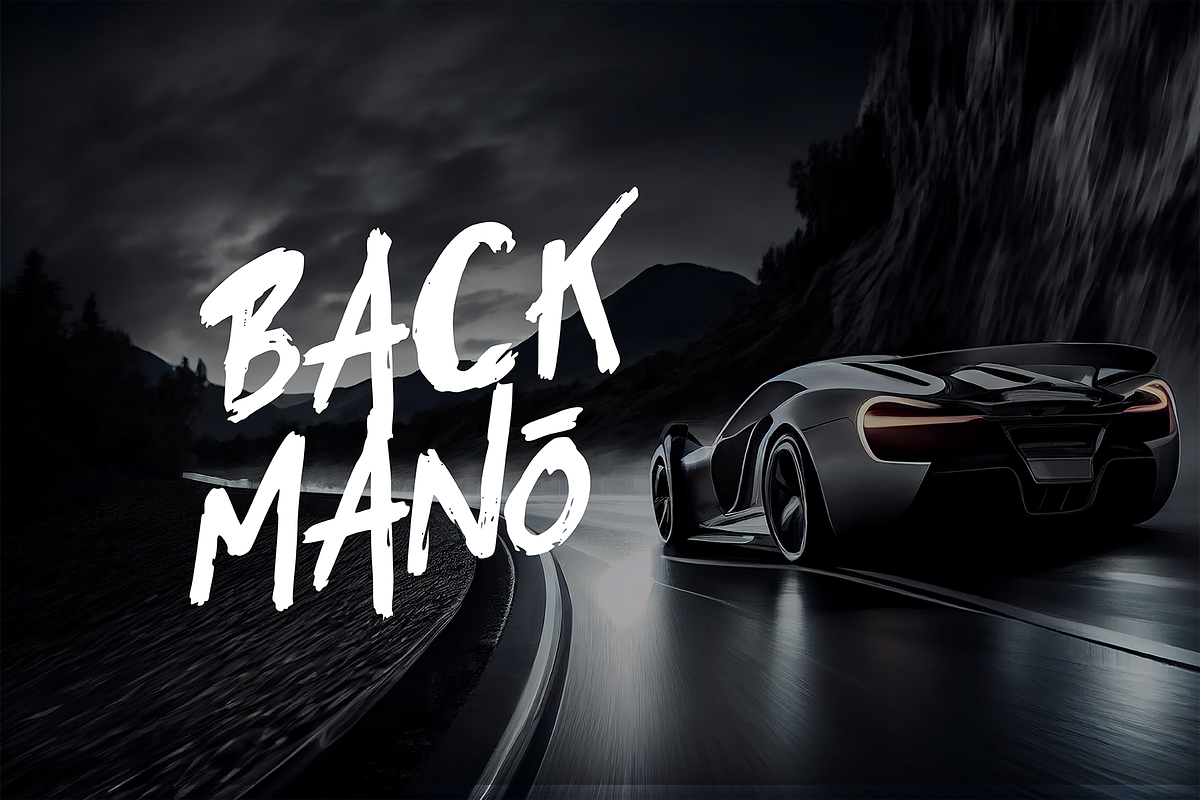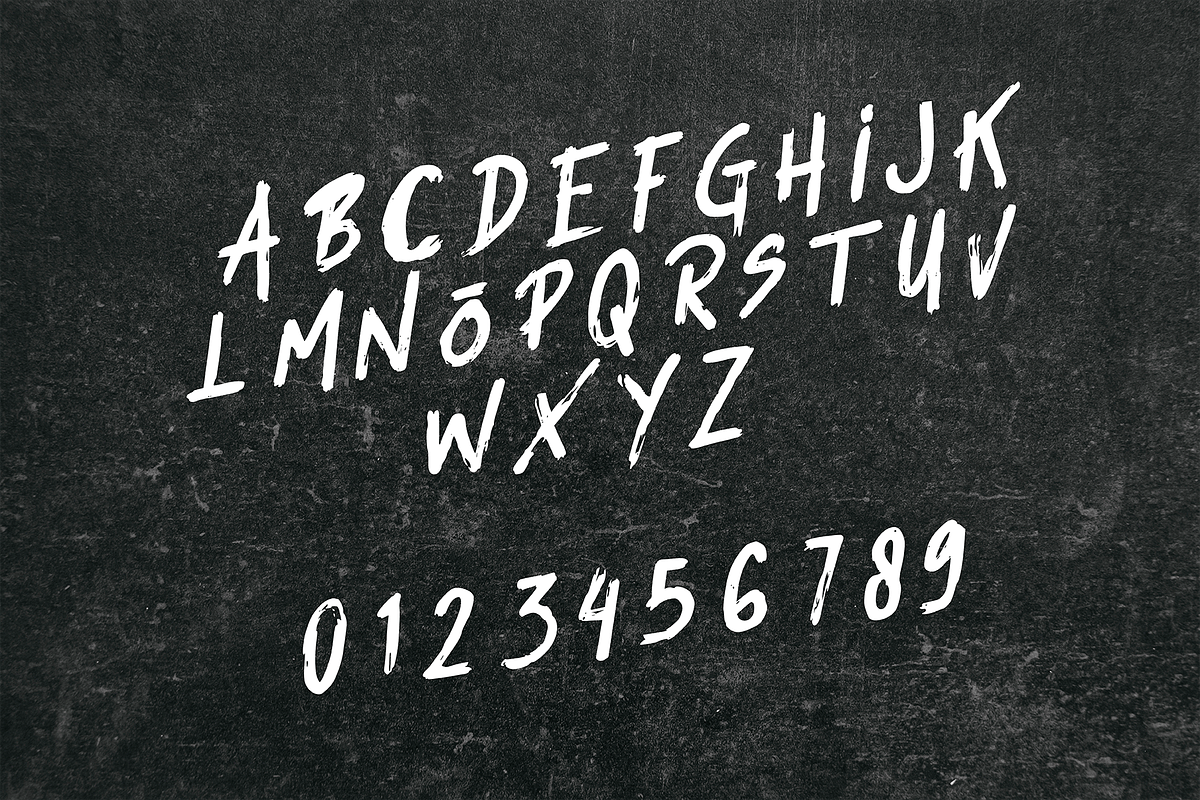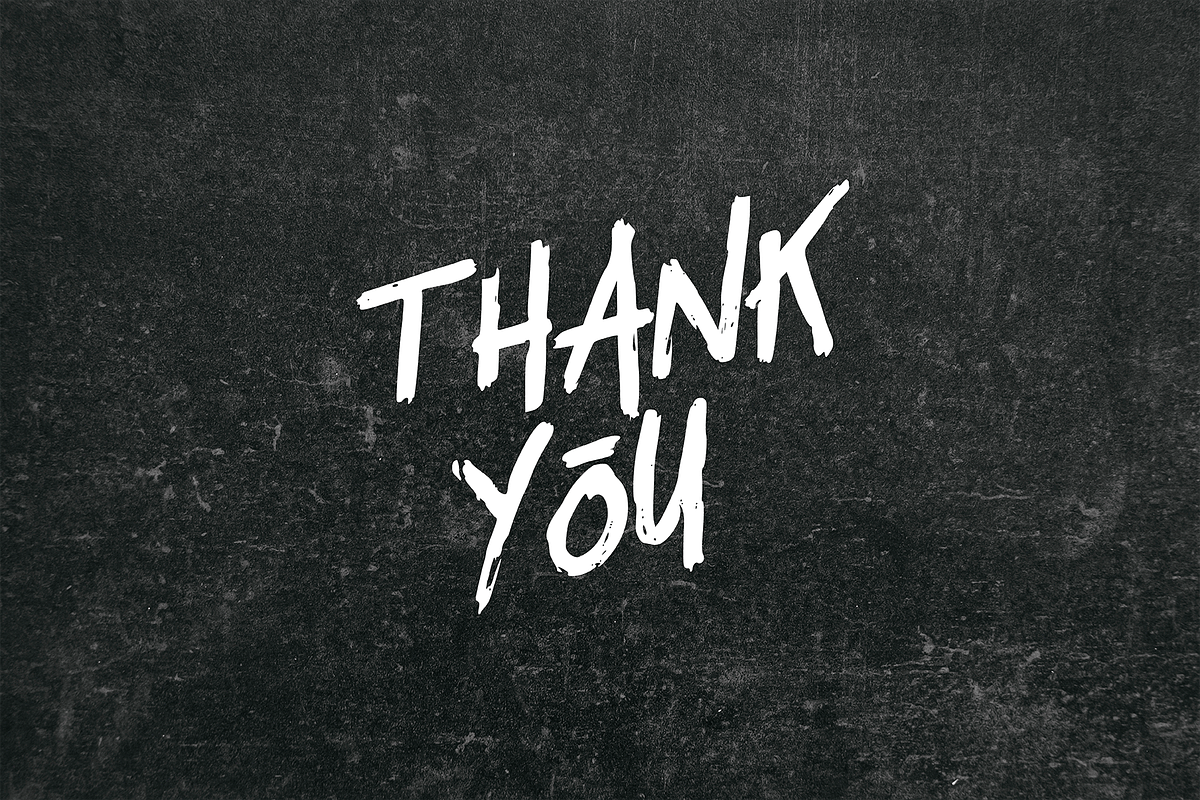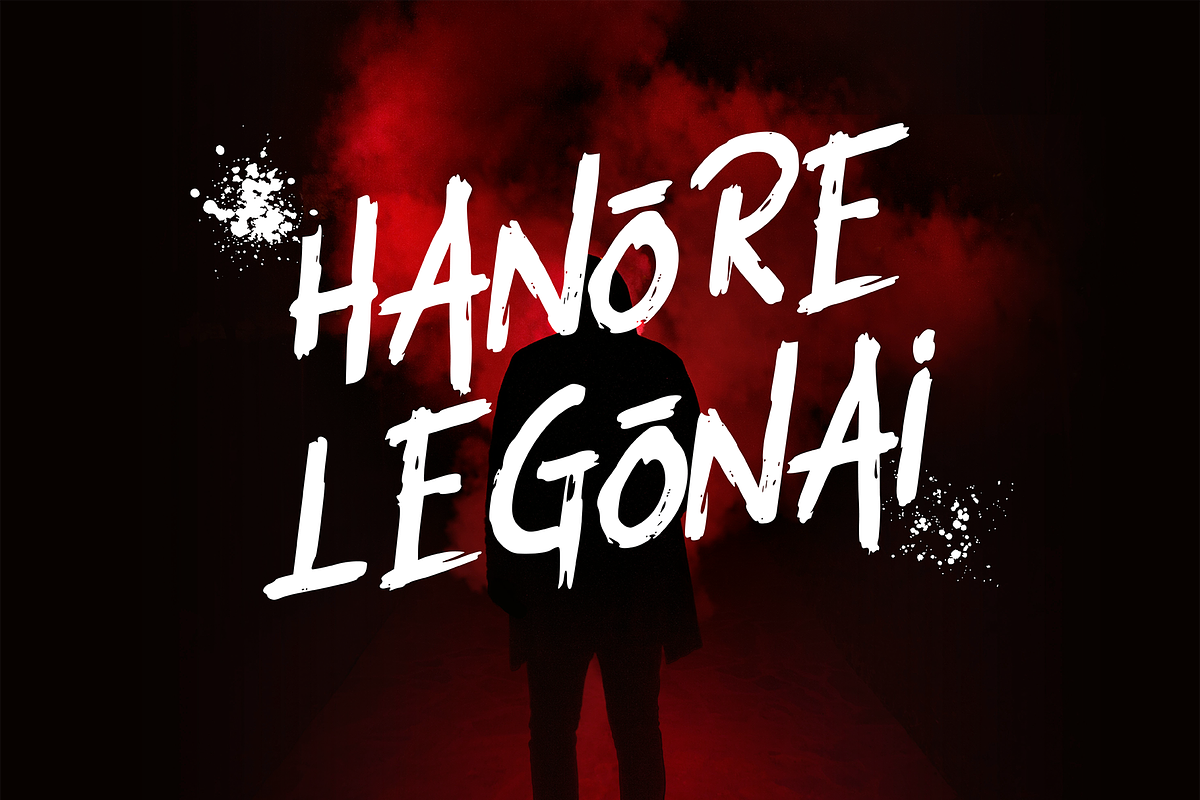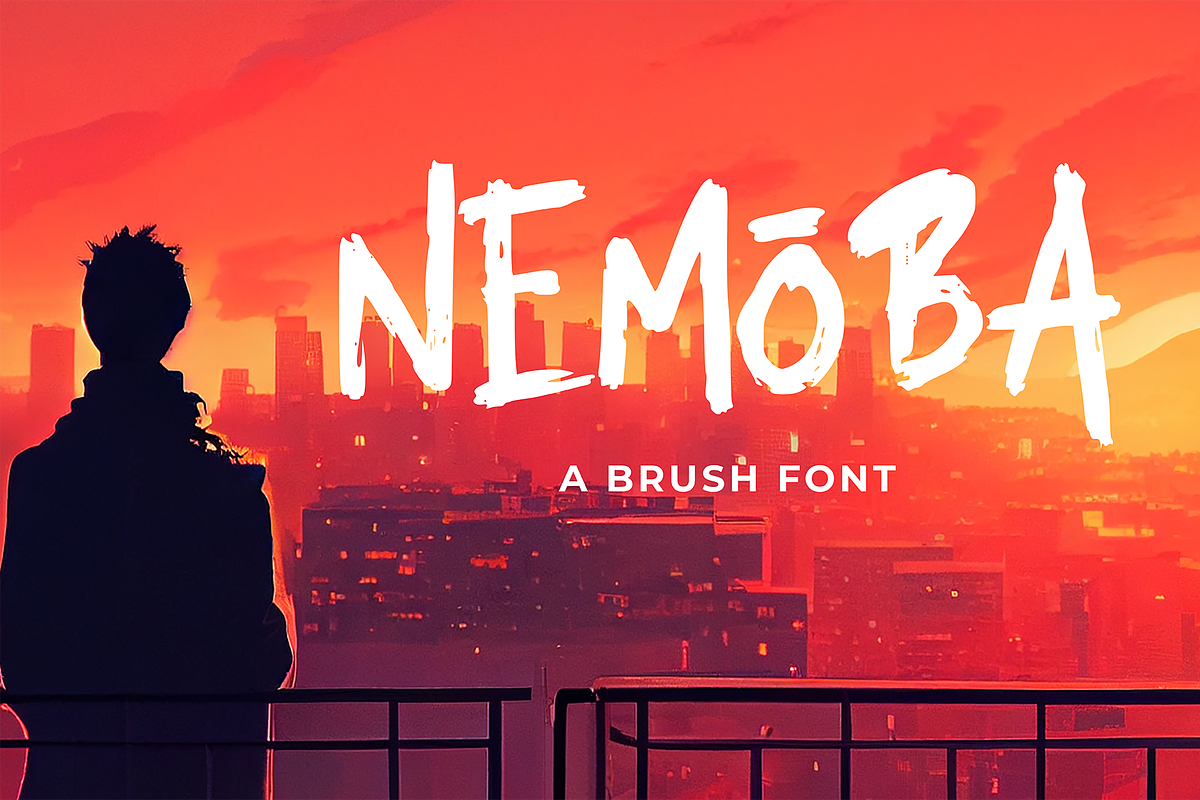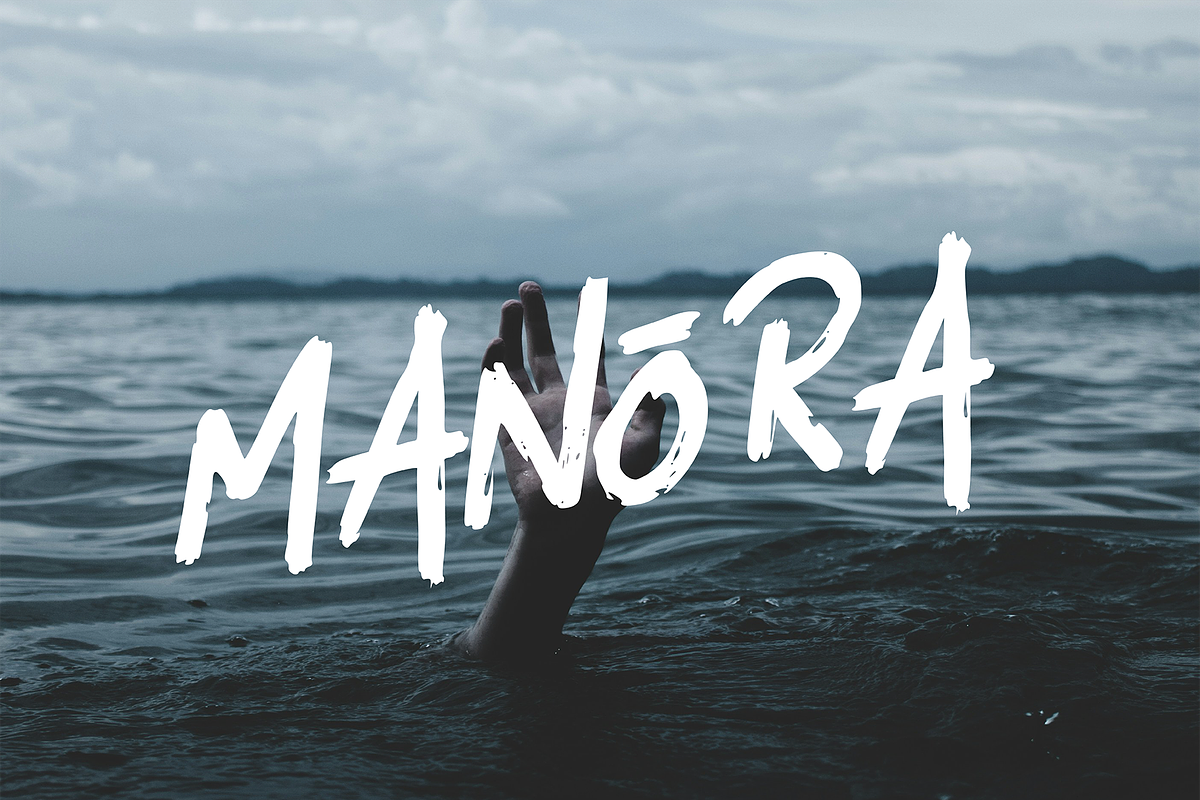
Nemoba Brush Font
Nemoba is natural dry brush font. It’s perfect for logos, quotes, posters, playful lettering, for clothing, and every other design which needs an unique touch.